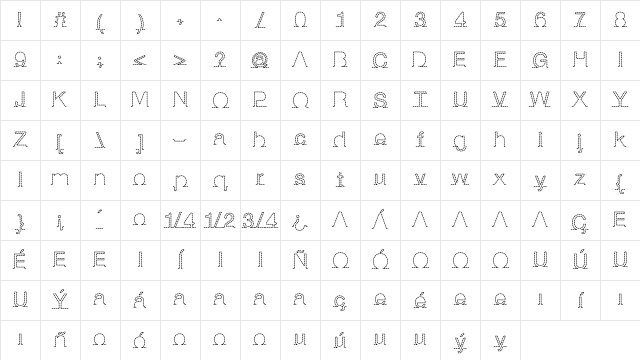
I am online with you Light Free Font
I am online with you Light
Foundry: Pisto Casero
Designer: Gilberto Moya
Design Context for I am online with you
I am online with you is a composed and adaptable typeface that performs quietly and consistently across a wide range of design contexts. Its slender proportions lend an understated elegance to any composition.